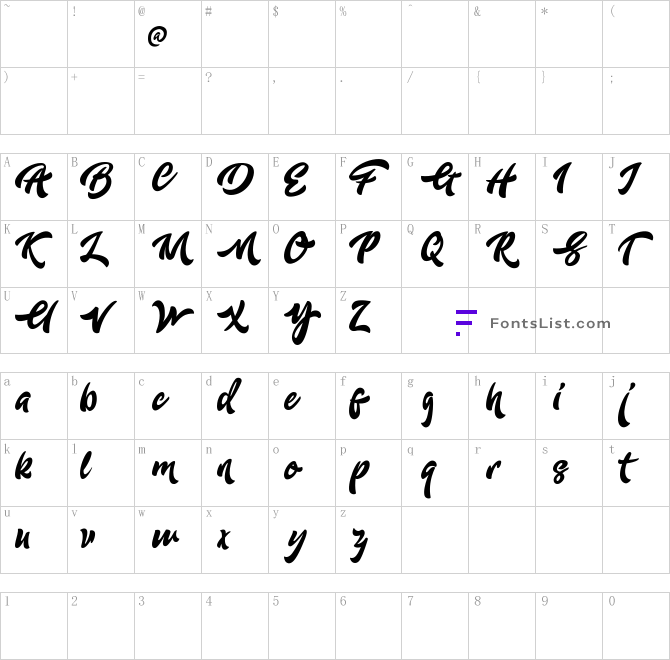
- Font Name:Adleit - Demo
Adleit-Demo.ttf is a very beautiful artistic font, Adleit-Demo.ttf is widely used in the design and printing of various books and pictures,Adleit-Demo.ttf has a strong visual impact,Adleit-Demo.ttf is a commonly used font in newspapers, magazines and books, and is used in posters, e-commerce Poster design, store design, logo design, font design and other fields.Adleit-Demo.